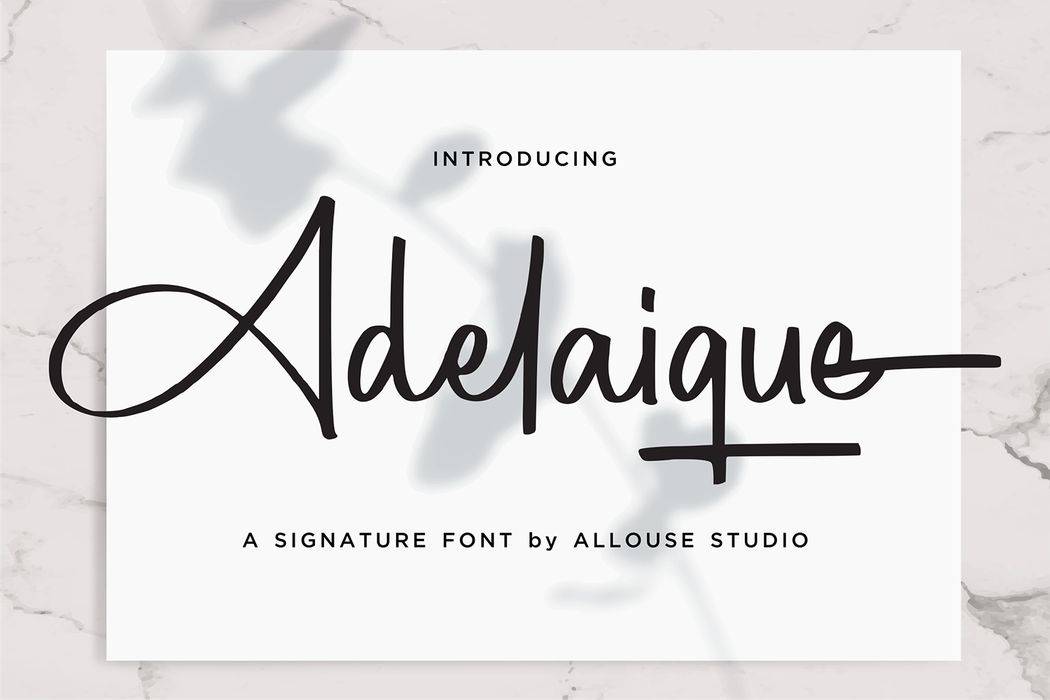
Adelaique is a light, narrow handwritten script font with a playful and elegant feel. Its tall, delicate letterforms feature whimsical curls and smooth strokes, making it ideal for creative branding, invitations, and stylish editorial use. This font brings a personal, charming touch while maintaining readability and sophistication.
Adelaique Font
About Adelaique Font